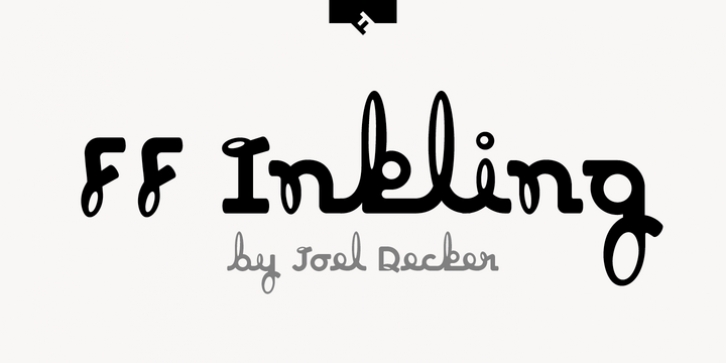
Publisher: FontFont
American type designer Joel Decker created this script FontFont in 1997.
The family contains 2 weights: Regular and Bold and is ideally suited for advertising and packaging, poster and billboards as well as software and gaming.
FF Inkling provides advanced typographical support with features such as ligatures and case-sensitive forms.
It comes with proportional oldstyle figures.